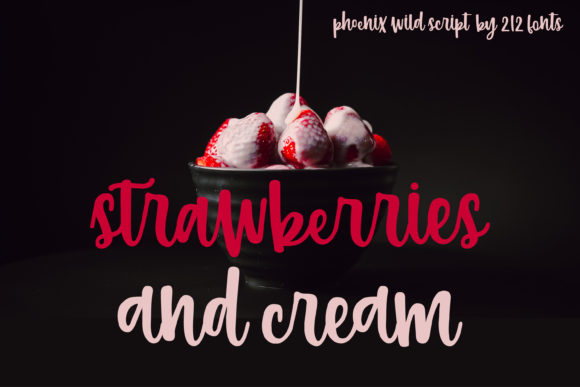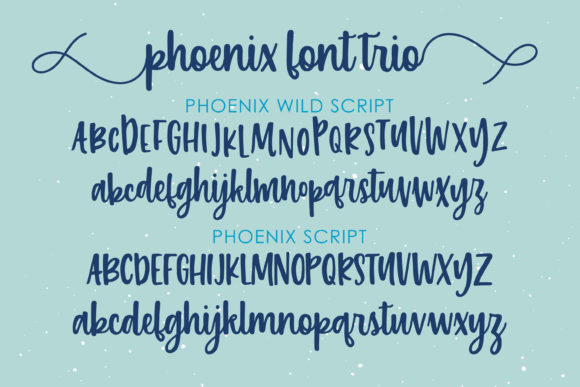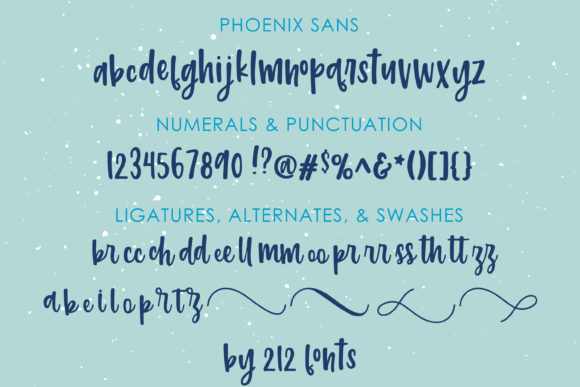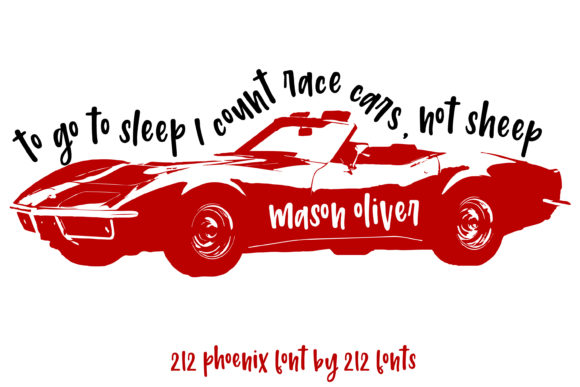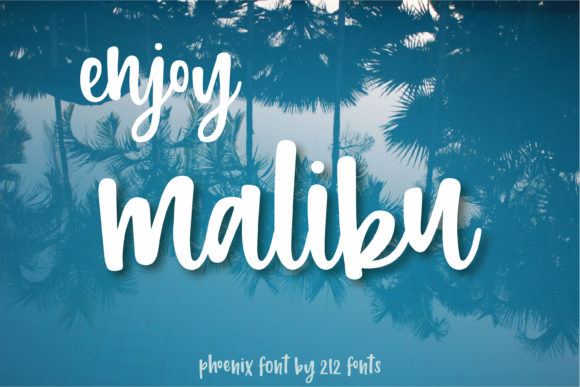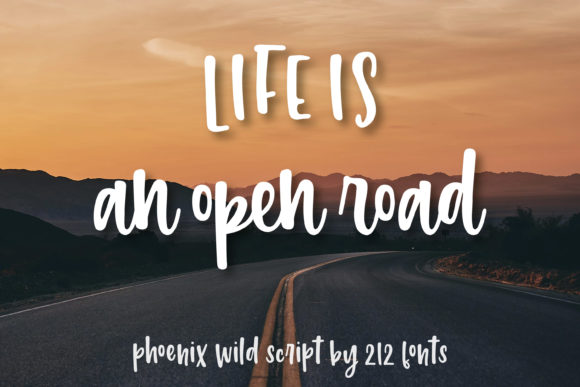
Introduction to Phoenix Script Trio Font
As a designer, have you ever found yourself staring at a blank page, waiting for that perfect font to spark your creativity? For me, it was a late-night design session when I stumbled upon the Phoenix Script Trio Font. Its unique blend of elegance and whimsy instantly captured my attention, and I knew I had to dive deeper. This trio of one-of-a-kind fonts is a game-changer for any design project, offering a high-quality, transparent background that’s perfect for creative projects.
Get ready to unlock your full creative potential with the Phoenix Script Trio Font. In this article, we’ll take a closer look at what makes this font trio so special and how you can use it to take your designs to the next level.
Key Features of Phoenix Script Trio Font
- High-quality, hand-drawn design perfect for creative projects
- Includes three unique script fonts with a transparent background for easy customization
- Each font is carefully crafted with a resolution of 300 DPI, ensuring crisp and clear text
- Unique characteristics include elegant swirls, cursive connections, and subtle texture, making it ideal for invitations, logos, and other creative projects
Honest Review: Phoenix Script Trio Font
As a designer, I’m always on the lookout for high-quality fonts that can elevate my creative projects. I recently stumbled upon the Phoenix Script Trio Font, and I’m excited to share my honest review with you.
- Beautifully crafted script font with a unique and elegant feel.
- Includes three different styles: Script, Rough, and Brush, offering a range of creative possibilities.
- Perfect for designing invitations, quotes, and other creative content where a personal touch is needed.
- Limited character set, which may not be suitable for longer texts or professional publications.
- Not ideal for body text, as it can be difficult to read in smaller sizes.
Overall, I’m impressed with the Phoenix Script Trio Font. While it may not be perfect for every design project, it’s a great resource to have in your toolkit. With its unique style and free download, it’s definitely worth checking out for your next creative project.